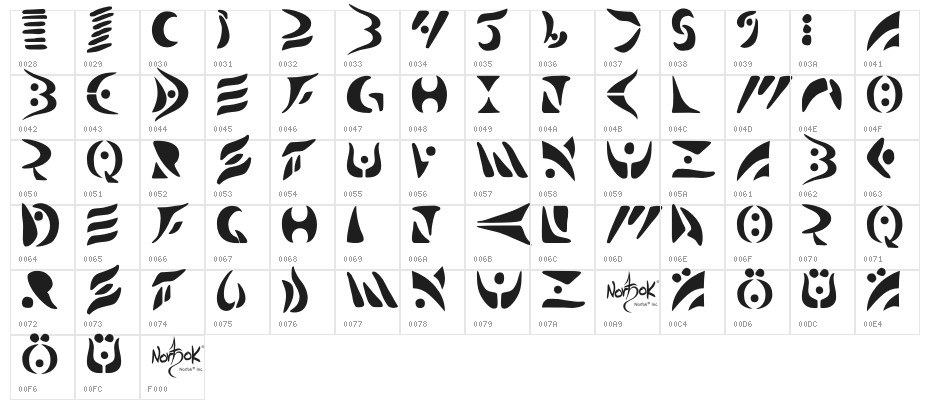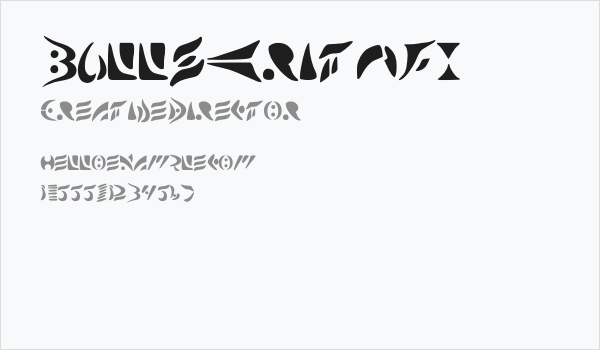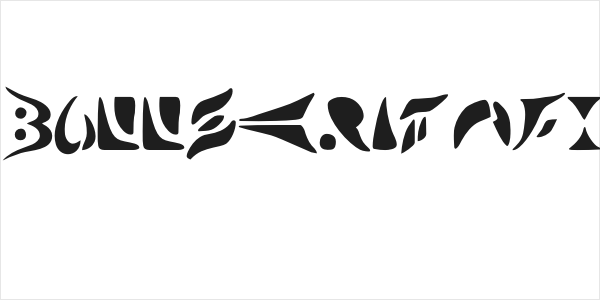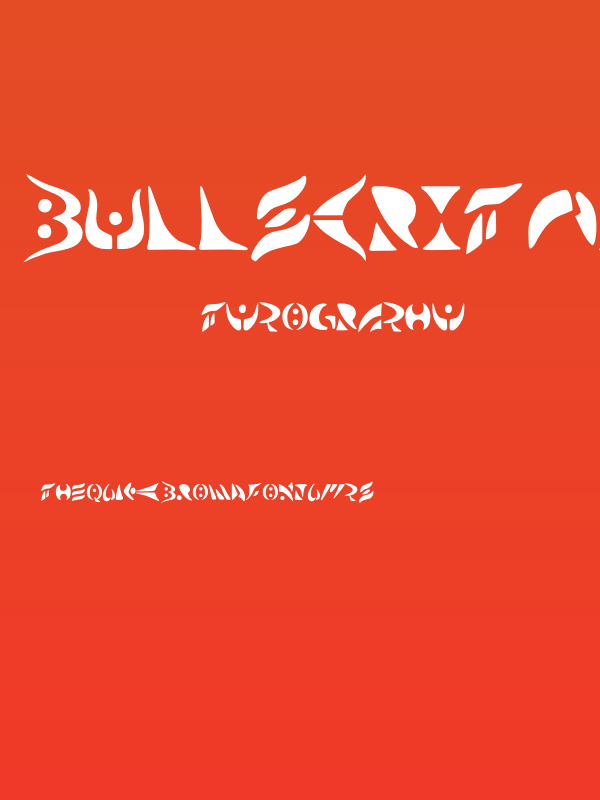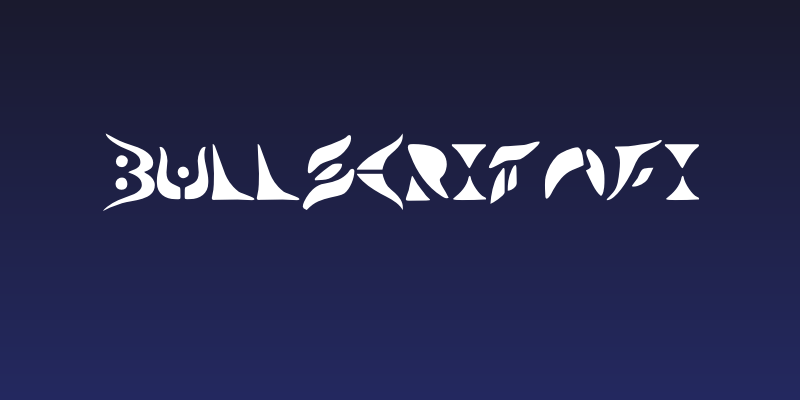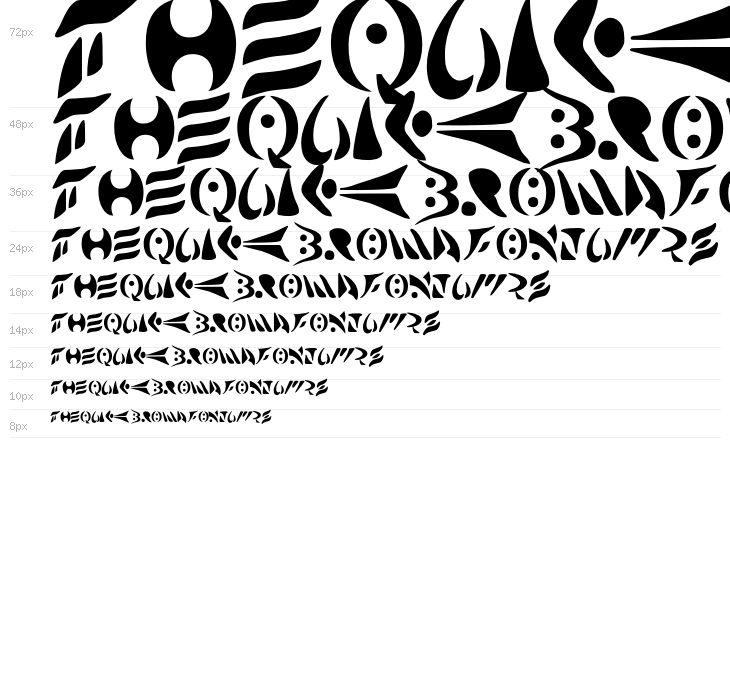
Bullskrit NFI Font
Bullskrit NFI Description
This font features a highly stylized and abstract design, characterized by bold, sweeping curves and sharp angles. Each character is crafted with a unique artistic flair, making it stand out with its dramatic and eye-catching appearance. The font's design incorporates elements that resemble tribal or ancient script, giving it a mysterious and exotic feel. The letters are thick and heavy, with a strong presence that commands attention. This font is ideal for projects that require a bold and unconventional look, such as fantasy-themed designs, album covers, or branding for creative industries.
| Proposed Projects | Fantasy-themed designs, album covers, creative branding, posters. |